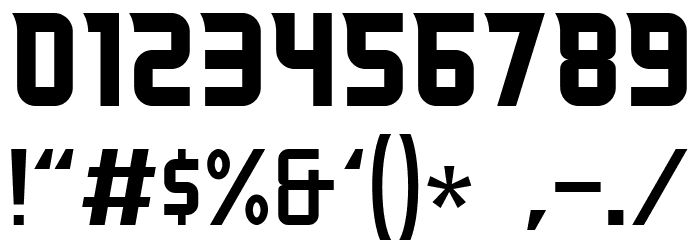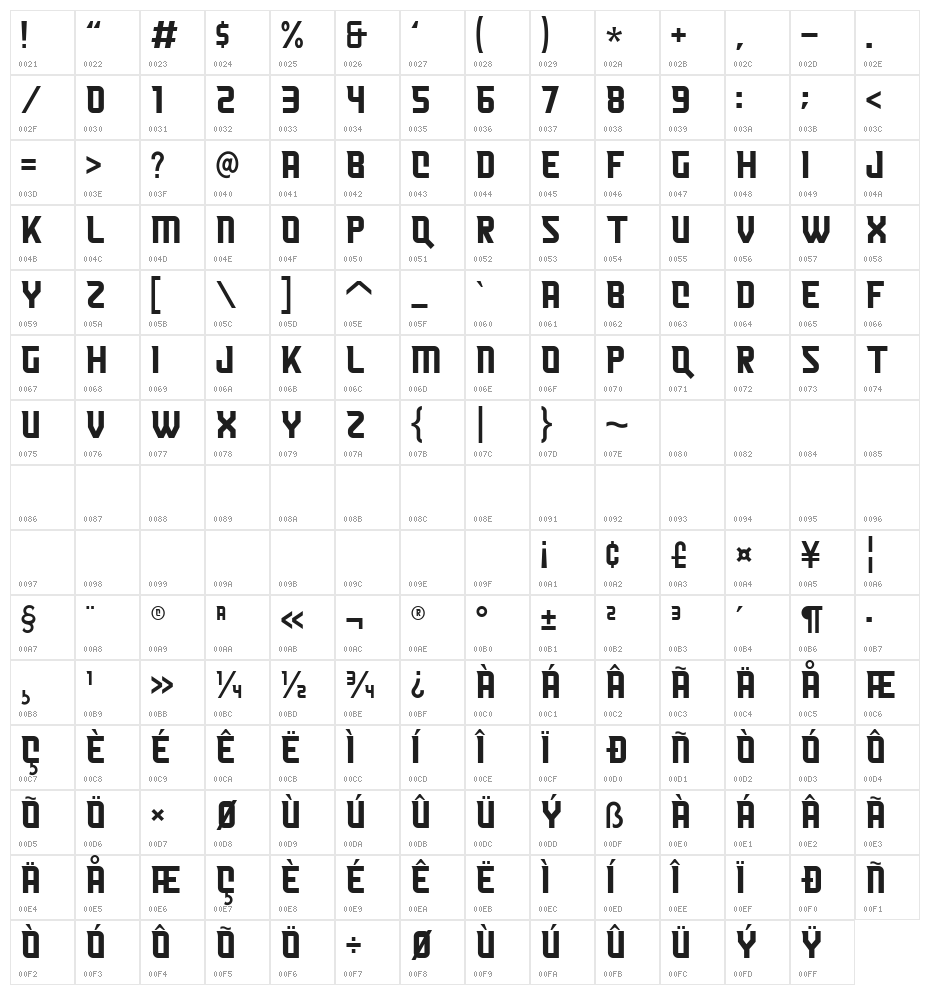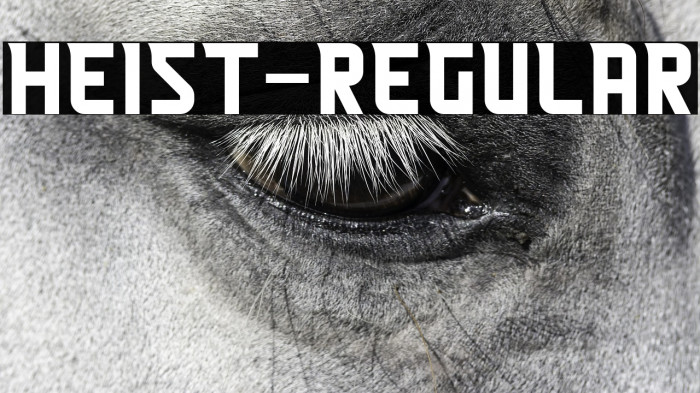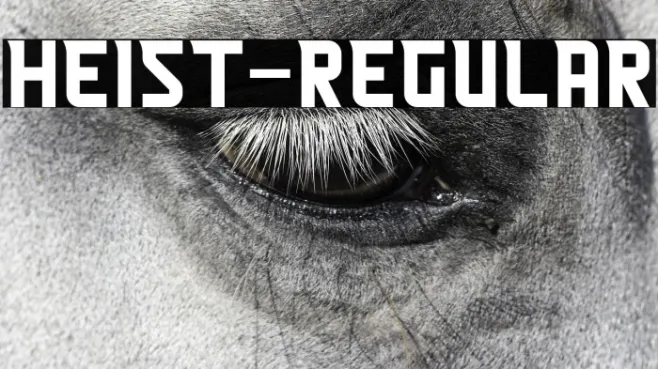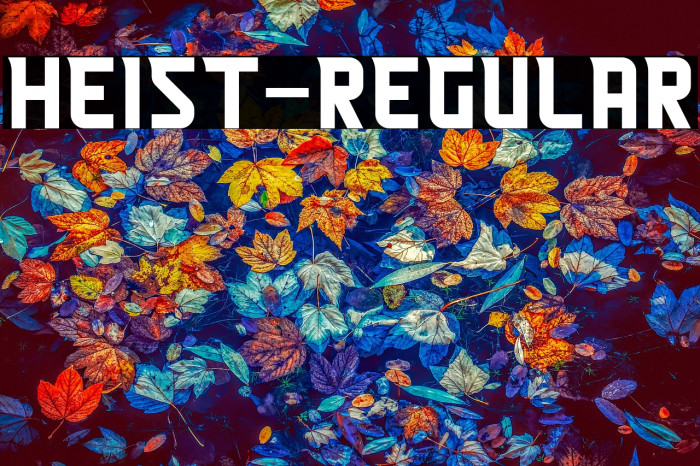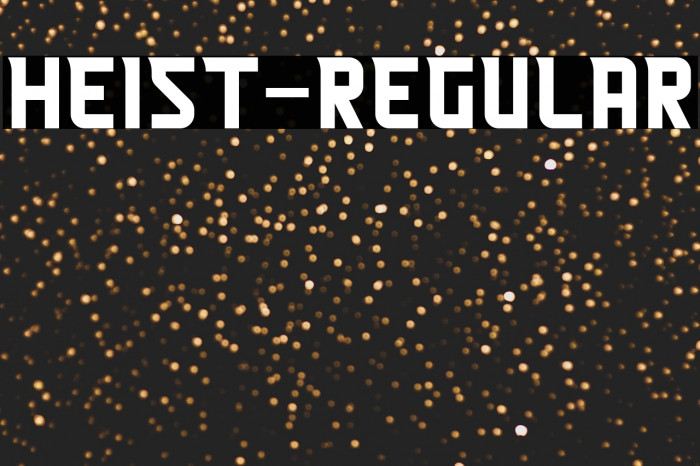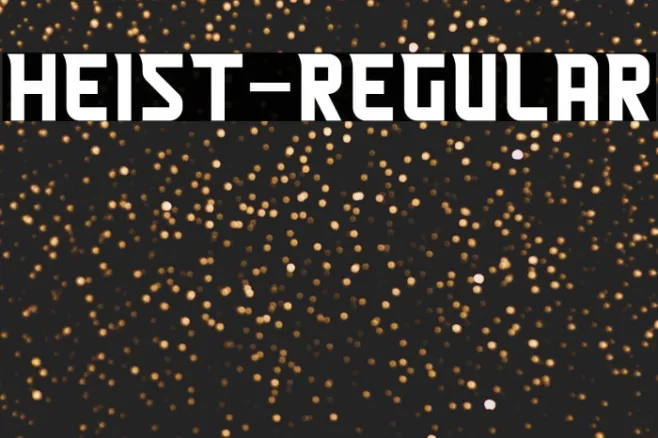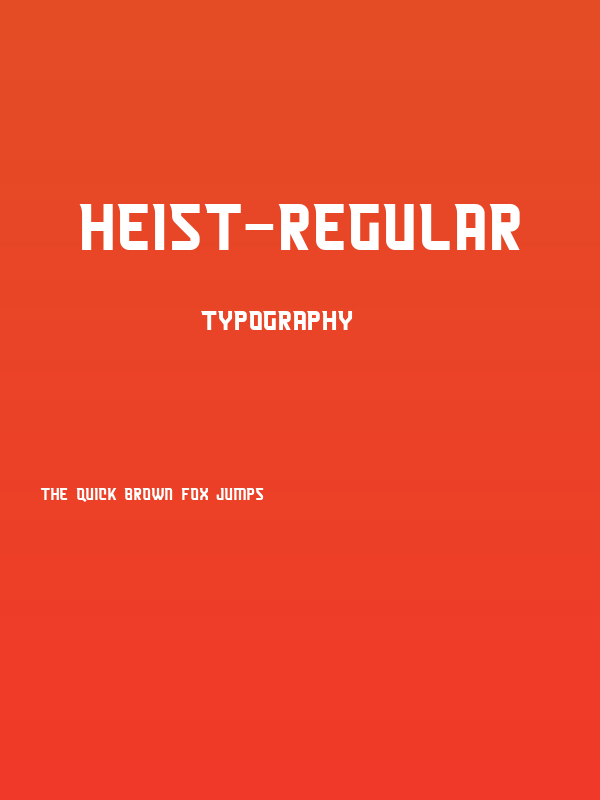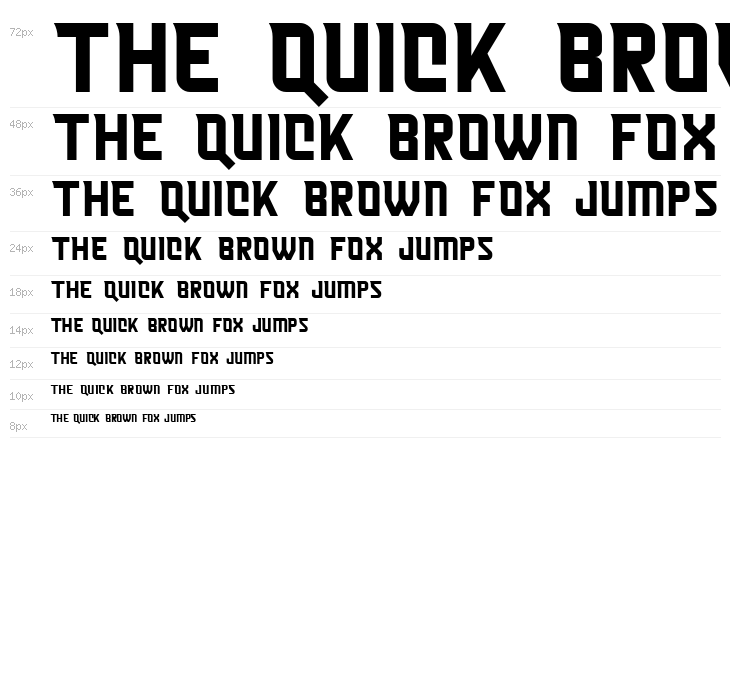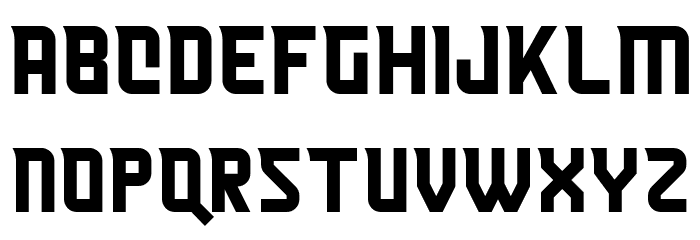
Heist-Regular Font
Heist-Regular Description
This font features a bold, geometric design with strong, angular lines and a modern aesthetic. The uppercase letters are uniform in height, creating a cohesive and structured appearance. The lowercase letters maintain the same boldness, ensuring readability and impact. The numerals are distinct and align well with the overall style, while the special characters complement the font's bold and assertive nature. This typeface is ideal for projects that require a strong visual presence.